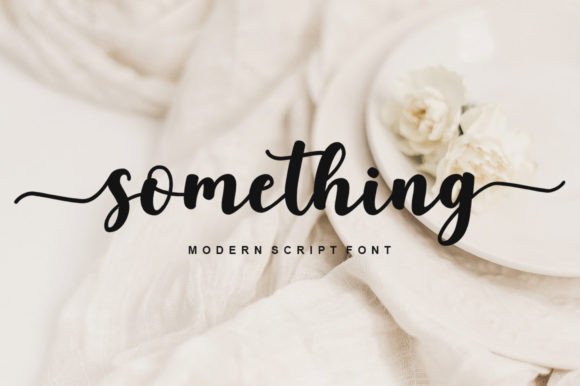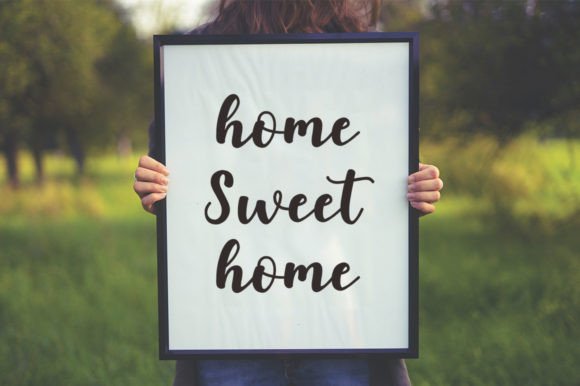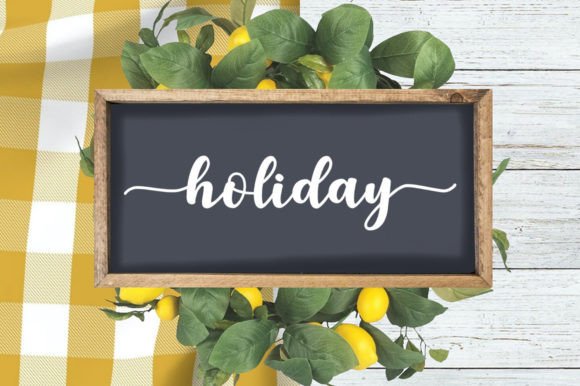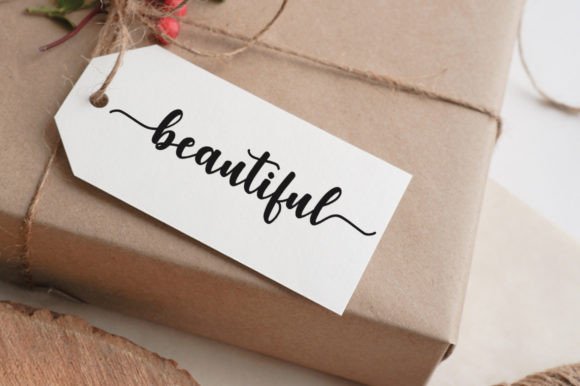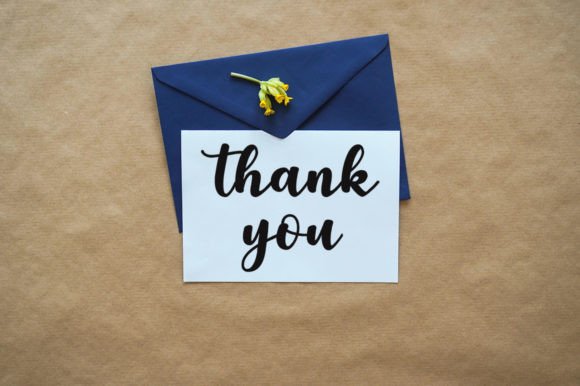
Something Font
The Something Font Download is a dazzling handwritten script crafted with precision and style. Its fine details and graceful curves make it a standout font for creative work. Whether you design invitations, posters, branding, or digital projects, Something adds elegance while staying clear and easy to read. This script is also PUA encoded, which means you can access all glyphs and swashes with ease.
A Dazzling Script with Neat Details
The Something script font blends decorative strokes with practical readability. As a result, it feels refined and timeless. Furthermore, it adapts well across many formats, from small greeting cards to large display posters.
Handwritten fonts add emotion to personal designs. The Something Font is perfect for wedding invitations, birthday cards, thank you notes, and holiday stationery. Because of its stylish curves, every message feels polished and unique. In addition, its clean design ensures easy reading.
Branding and Logo Design with Something Font
Typography sets the tone of a brand. The Something handwritten font is an excellent option for boutique logos, product packaging, and advertising campaigns. Its detailed strokes give businesses a professional yet creative image. Therefore, it is a reliable font for modern branding.
Posters, Titles, and Creative Displays
The Something Font Download works wonderfully for posters, magazine layouts, banners, and book covers. It keeps its clarity in both small and large sizes. Consequently, it is a good choice for designers who want style and readability together.
In today’s digital space, fonts must catch attention quickly. The Something typeface integrates smoothly into Instagram posts, YouTube thumbnails, Pinterest graphics, and blogs. Its dazzling handwritten rhythm helps digital projects look stylish and engaging.
Why Designers Choose Something Typeface
Designers value fonts that balance creativity with usability. Many handwritten scripts can be artistic but hard to use. However, the Something handwritten script keeps its elegant personality while remaining simple to apply. This makes it a dependable choice for both professional and personal work.
Add Elegant Charm to Your Projects Today